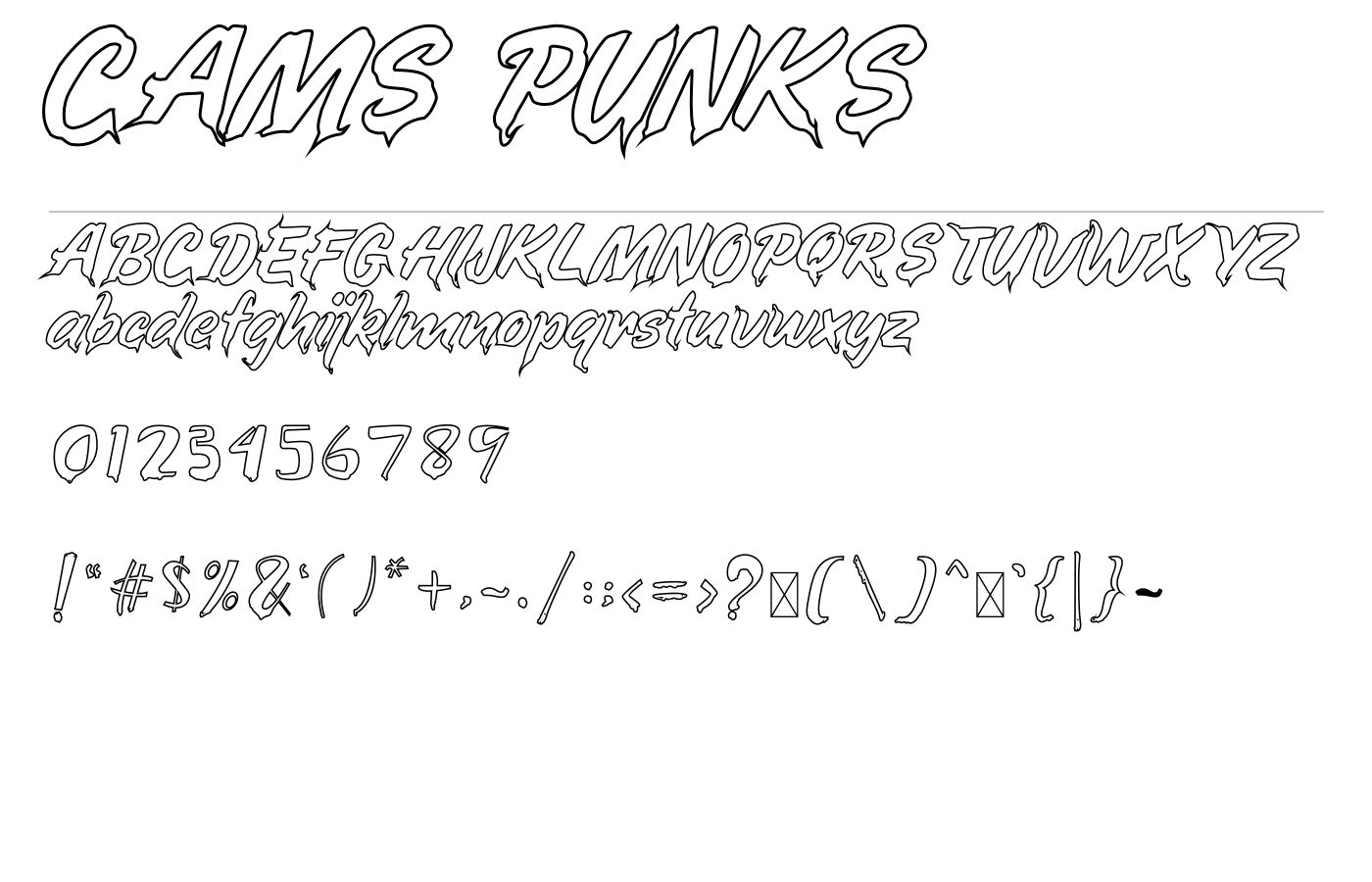
CAMS PUNKS is a bold, edgy script font with a hand-drawn, rebellious vibe, featuring sharp, jagged strokes that resemble dripping or flame-like details. Its energetic style and casual, graffiti-inspired letterforms make it perfect for eye-catching logos, posters, and designs aiming to convey a youthful, alternative attitude. This font stands out in creative, urban, or punk-themed projects where a strong personality and visual impact are essential.
CAMS PUNKS Font
About CAMS PUNKS Font